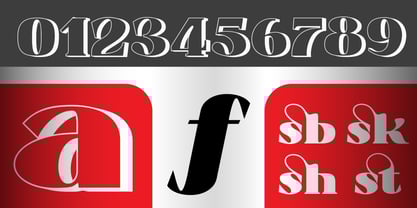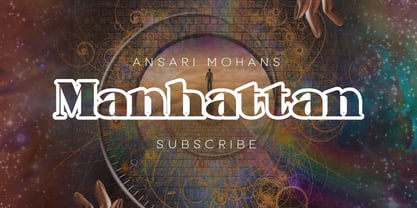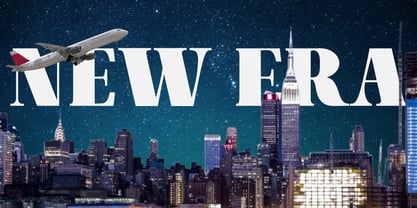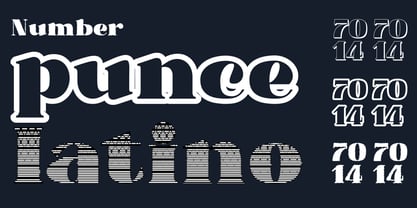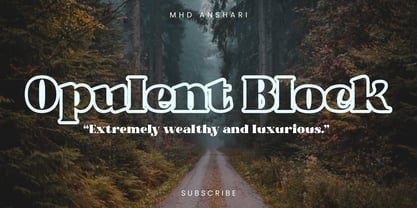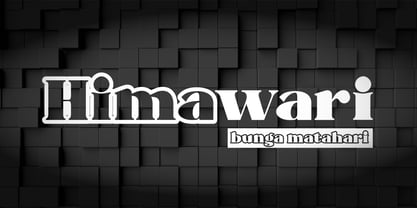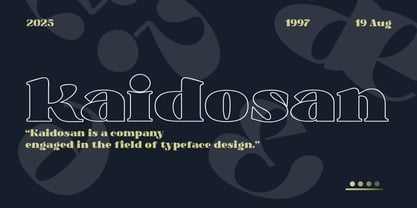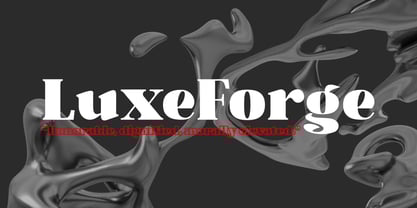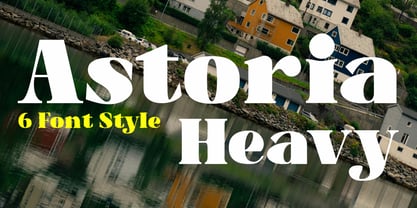
Astoria heavy
by Kaidosan
The Astoria heavy Font Family was designed by Muhammad Ansari and published by Kaidosan. Astoria heavy contains 6 styles and family package options.
Astoria Heavy is a bold display serif typeface that masterfully blends classic elegance with contemporary edge. Designed to make a strong visual impact, its sharp serifs, thick letterforms, and dramatic details create a commanding presence while maintaining refined sophistication.
Astoria Heavy is ideal for projects that demand high visual authority—editorial headlines, premium branding, luxury packaging, artistic posters, and more. It speaks with a tone that is confident, expressive, and unmistakably bold.